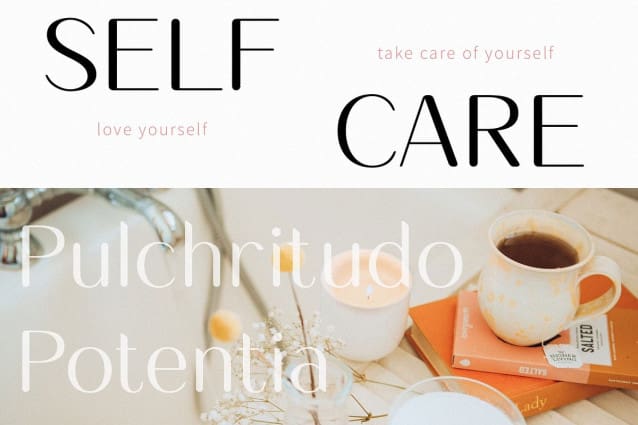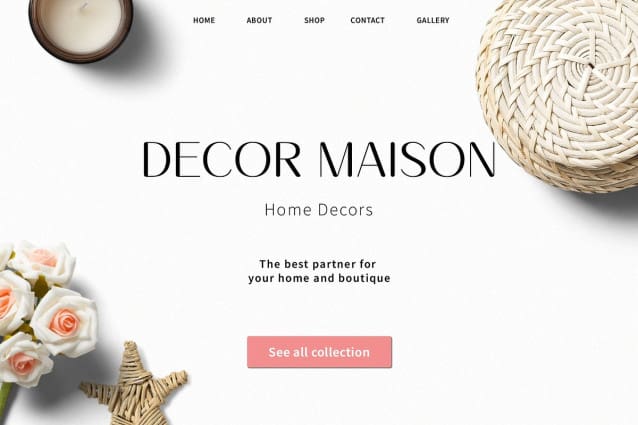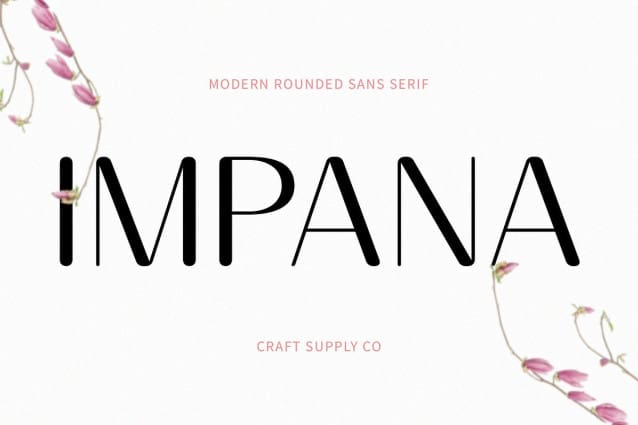
Impana Rounded Font
Impana Rounded Font: Redefining Elegance in Sans Serif. Soft and Elegant Design Impana Rounded features a sophisticated sans serif design characterized by high contrast and rounded stem terminals. Its soft and elegant appearance adds a touch of refinement to any project.
Distinctive High Contrast With its pronounced variation between thick and thin strokes, This font high contrast style brings visual interest and depth to each character, ensuring a captivating display.
Rounded Stem Terminals The rounded terminals of This font stems impart a gentle, inviting aesthetic, enhancing the font’s overall elegance and creating a harmonious flow throughout the typeface.
Versatile Application This font is versatile, suitable for a wide range of design applications. Whether used in branding, editorial design, or web interfaces, its elegant yet approachable style delivers a lasting impression.
Elegance Meets Versatility This font redefines elegance in sans serif typography with its high contrast design and rounded stem terminals. Offering versatility and sophistication, it is the perfect choice for designers seeking to elevate their projects with a touch of refined charm.